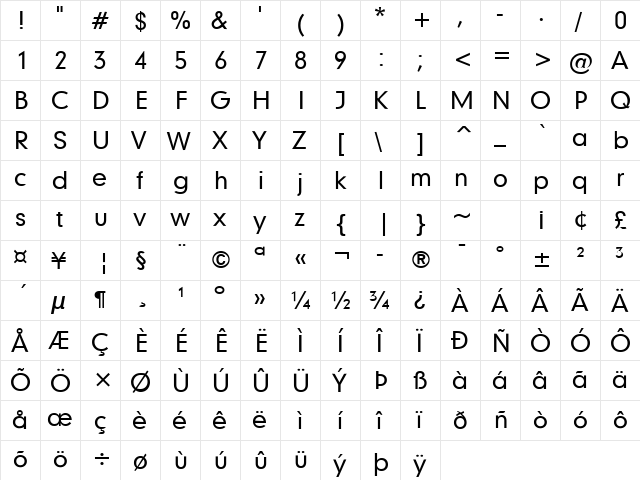
Ramble On 1 Regular
Design Context for Ramble On 1 Typeface
Ramble On 1 is a composed and adaptable typeface that performs quietly and consistently across a wide range of design contexts.